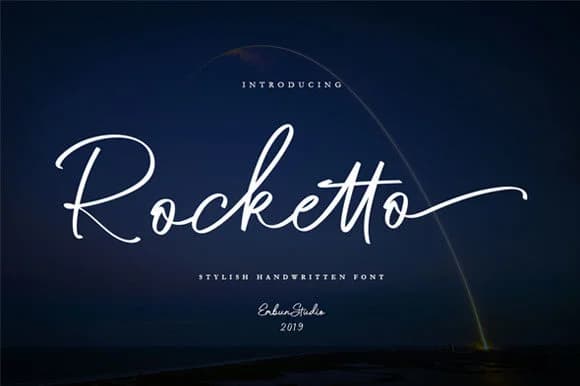
About Rocketto Font
Imagine hand-lettering a wedding invitation suite where the script feels personal yet polished without losing its natural ease and warmth. That's Rocketto Font, designed by EmbunStudio. This contemporary script captures genuine character while maintaining the refinement that distinguishes authentic handwritten lettering from generic digital effects.
Rocketto works beautifully across applications where personality and warmth truly matter in the design. Picture wedding invitation suites with coordinating monogram cards, luxury boutique skincare packaging labels, personalized gift tags bearing artisan product names and details, or hand-lettered cafΓ© menu boards announcing seasonal offerings and drink specials. The font includes a substantial set of ligatures, flowing and connecting naturally so character pairs merge as though genuinely hand-drawn. This built-in letter joining creates visual continuity that transforms ordinary spacing into something that reads as authentic and carefully considered.
The consistent stroke weight and balanced proportions give you real flexibility across different scales and contexts. At large display sizes it maintains its casual warmth and visual presence, while smaller applications retain legibility without sacrificing character or personality. The ligatures adapt whether you're working on bold headlines or supporting body text. Grab Rocketto on Creative Fabrica to add this contemporary script to your working collection.
- Elegant, Flowing
Rocketto Font is a script font that shines as a display or heading face. Pair it with a clean sans-serif or serif font for body text β the contrast creates a clear hierarchy while the two styles stay balanced and easy to read.